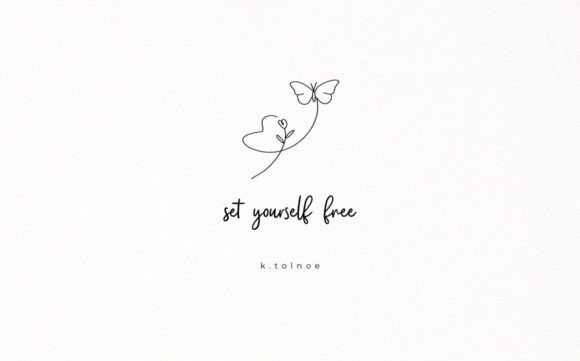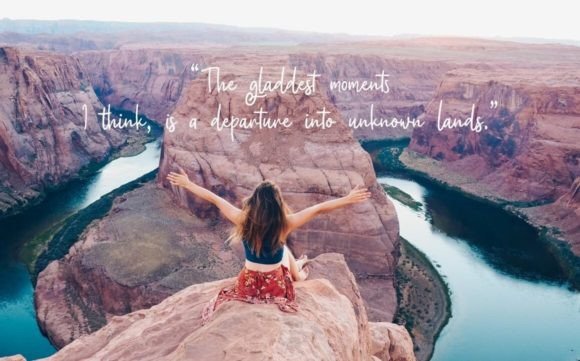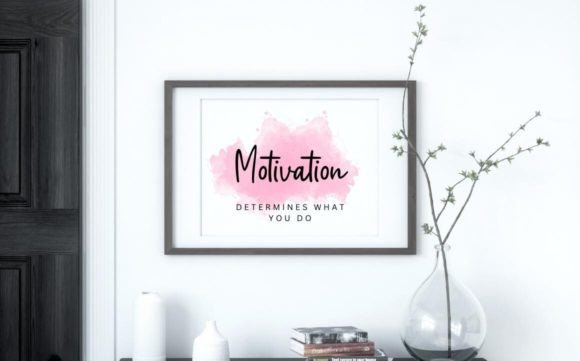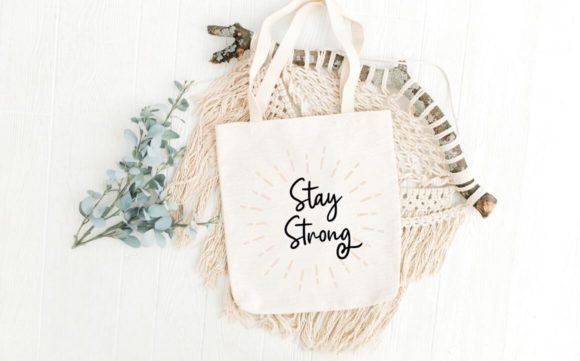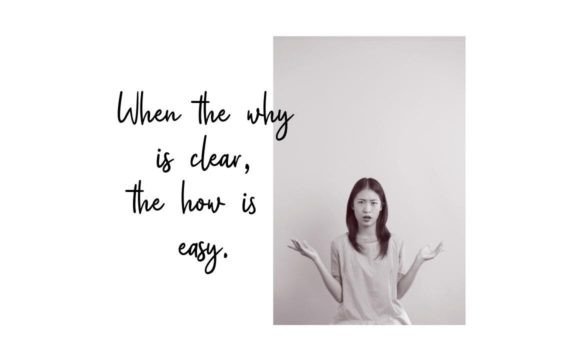
Introduction to Red Balloon Font
Red Ballon is a unique, cool, and modern handwritten font.
This stylish font features a casual look appearance and simplicity of lines Its hand-look style makes it perfect for use in all your design projects be it branding, greeting card, labels, packaging design, or blog headlines.
Key Features of Red Balloon Font
Why Choose Red Balloon Font?